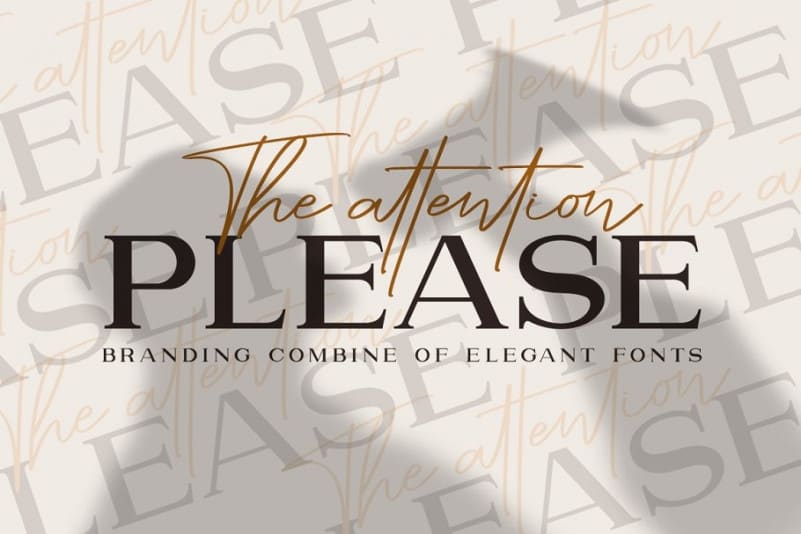
The Attention Please Font Duo
The Attention Please Font is made with a very natural writing techniques that look beautiful and elegant. Attention font have a great combination handwritten script and serif fonts this is perfect if used individually or in combination with others, this font also has a lot of ligature and will automatically produce a very natural writing as we write it.
Attention Please Font is a beautiful brand font duo that makes for different design projects, including logos & branding, wedding designs, wedding signs, book covers, social media posts, advertisements & product designs. It also supports Multi Language.